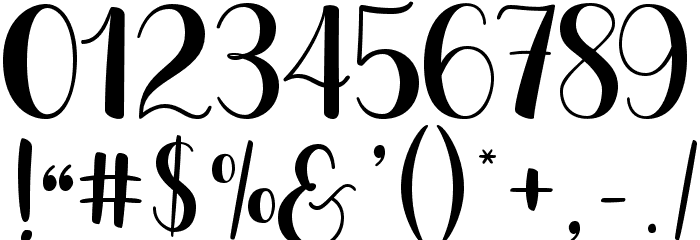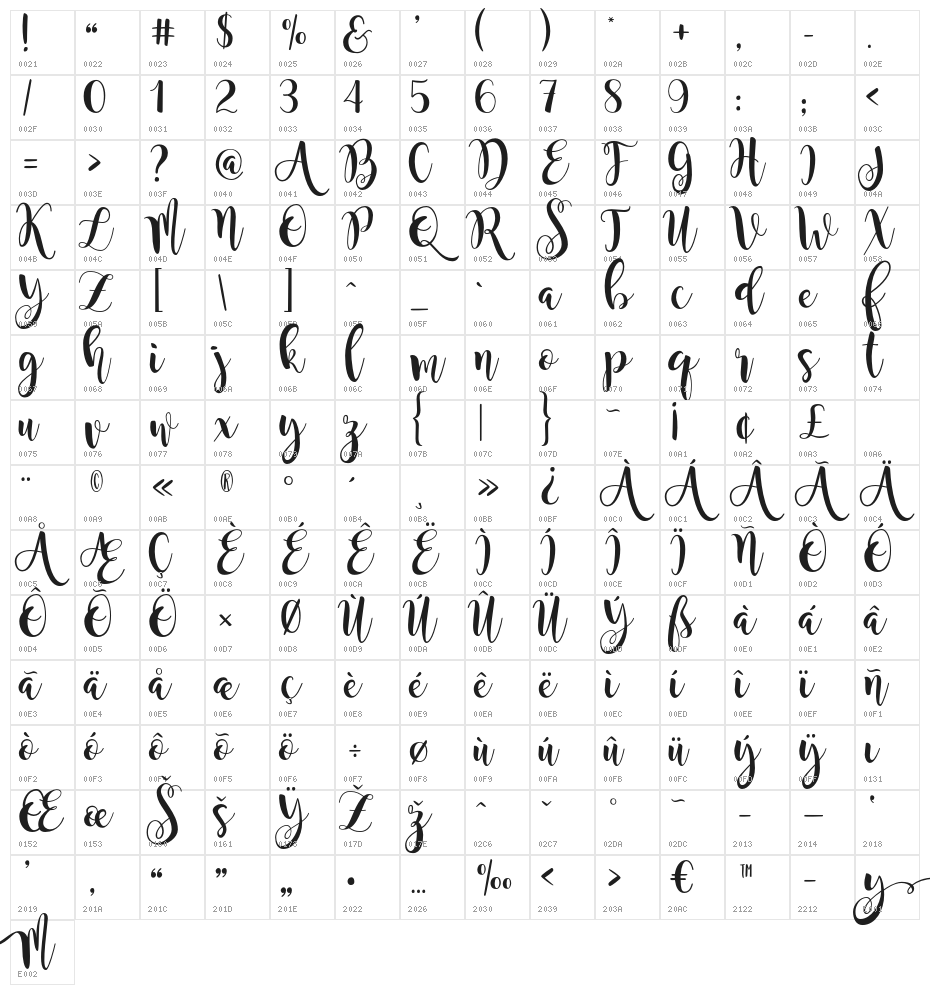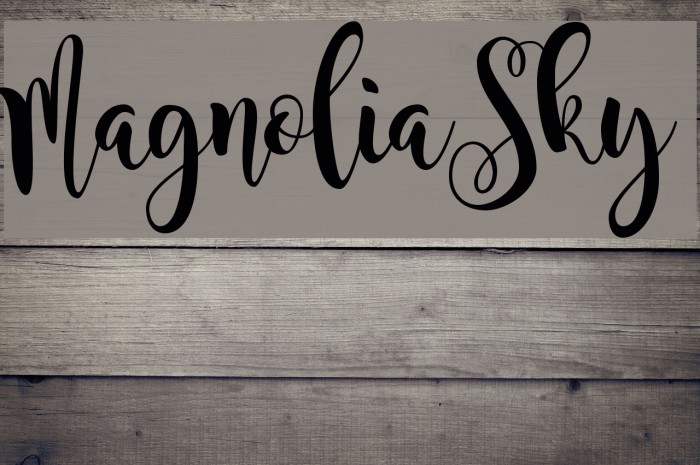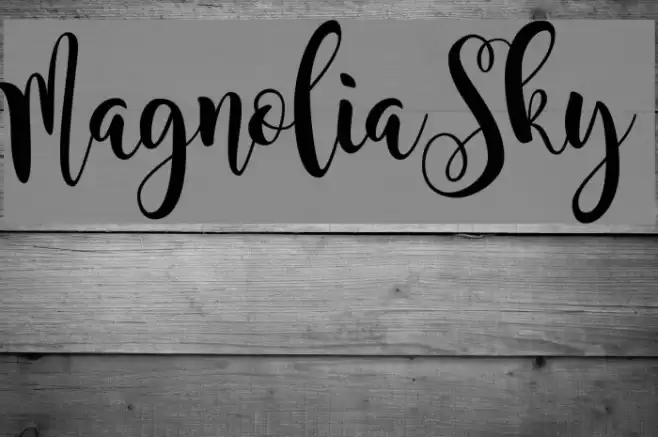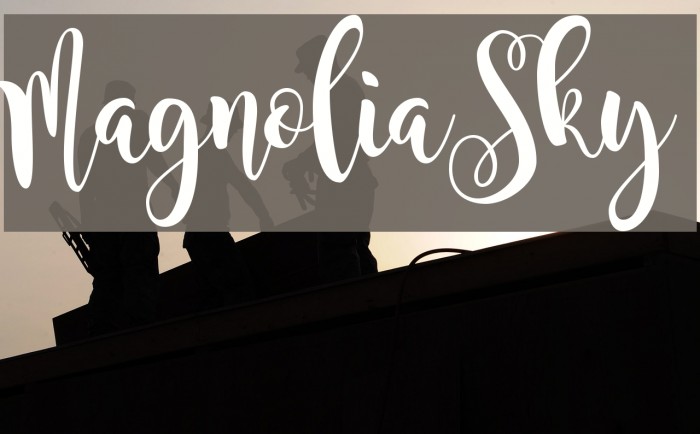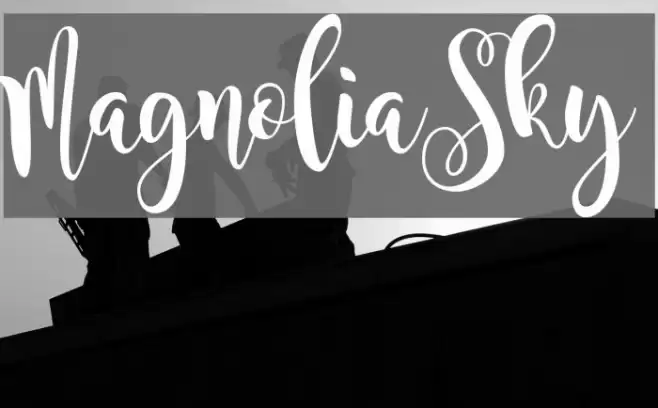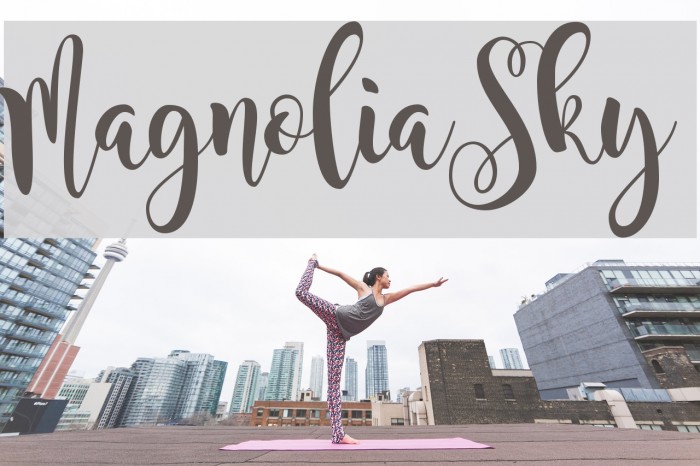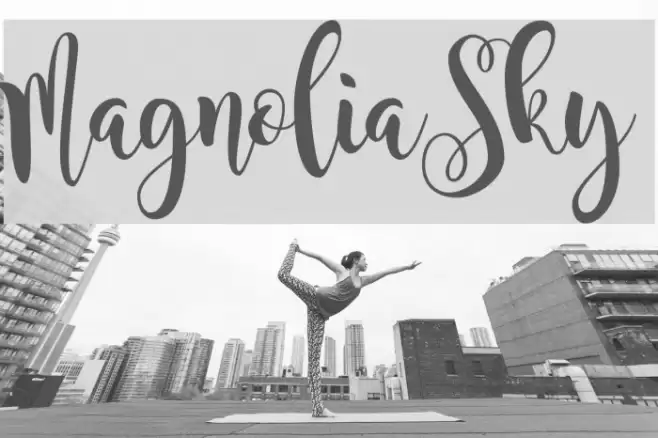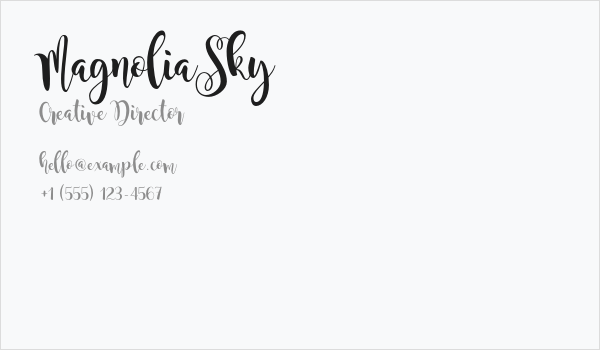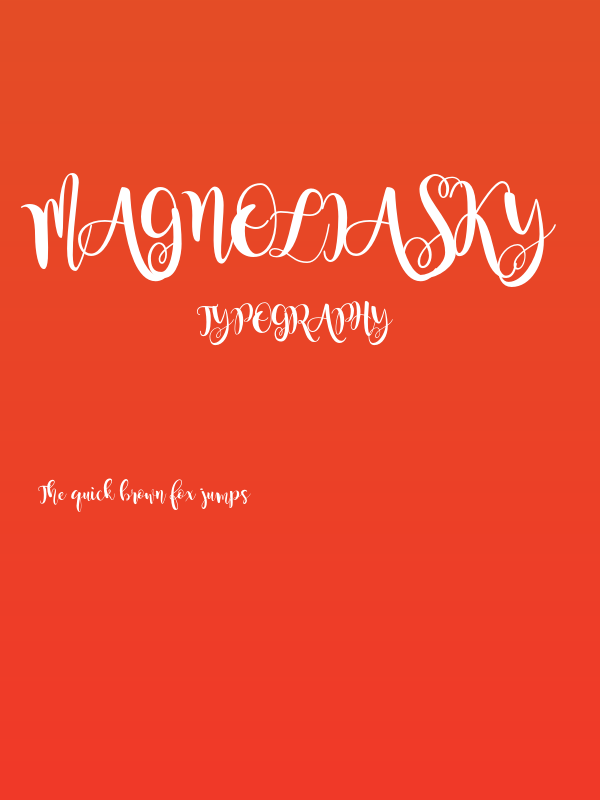
MagnoliaSky Font
MagnoliaSky Description
This font exudes a playful and elegant charm with its flowing, cursive style. The letters are interconnected, creating a seamless and fluid appearance that is both sophisticated and approachable. The uppercase letters are bold and expressive, while the lowercase letters maintain a consistent rhythm with their graceful loops and swirls. The numerals and special characters are designed to complement the overall aesthetic, adding a touch of whimsy. This font is perfect for projects that require a personal and artistic touch, such as invitations, greeting cards, and branding materials.
| Proposed Projects | Ideal for invitations, greeting cards, branding, and artistic projects. |